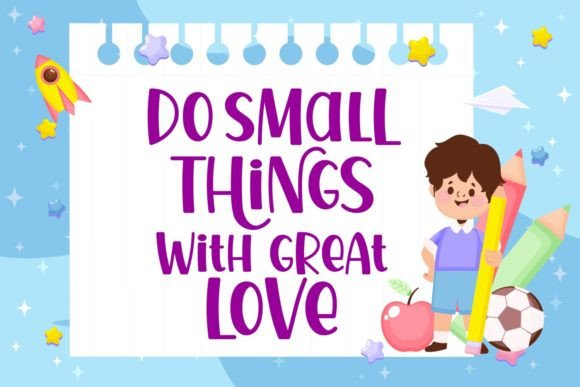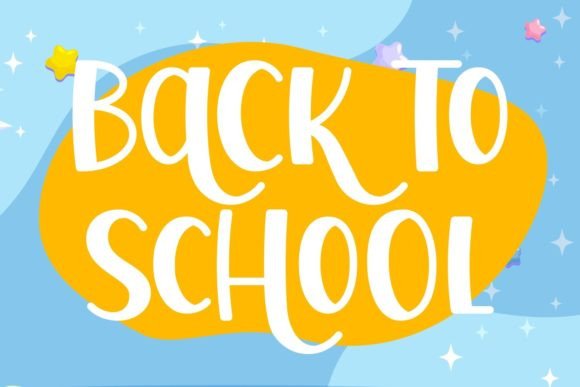
The Ultimate Guide to Favorite School Font: A Youthful and Exuberant Display Font
I’ll never forget the moment I stumbled upon the perfect font for my design project. I was working on a storybook for kids, and I wanted a font that would capture their playful and energetic spirit. After hours of searching, I finally found Favorite School Font, and it was love at first sight! ✨ In this article, I’ll share my honest review of this amazing font, provide a practical guide on how to use it, and explore similar fonts and alternatives.
My Honest Review of Favorite School Font
Here’s what I love about Favorite School Font:
- ✅ Youthful and exuberant look: This font is perfect for designs that require a playful and energetic vibe.
- ✅ Highly versatile: Favorite School Font can be used for a wide range of projects, from storybooks and back-to-school items to magazines and product packaging.
- ✅ Easy to read: Despite its playful nature, this font is surprisingly easy to read, even at smaller sizes.
- ✅ OpenType features: Favorite School Font comes with a range of OpenType features, including glyphs and stylistic alternates, which allow for endless creative possibilities.
However, I do have to mention a few small quirks:
- ⚠️ Limited use for formal designs: Due to its playful nature, Favorite School Font may not be the best choice for formal designs or projects that require a more professional look.
- 🤔 Some letters may be too ornate: A few letters, such as the lowercase “q” and “g”, can be a bit too ornate for some tastes.
The Designer Inspiration Behind Favorite School Font
According to its designer, Favorite School Font was inspired by the playful and carefree spirit of childhood. The font’s creator wanted to capture the essence of youthful energy and exuberance, making it perfect for designs that require a fun and lively vibe.
Q: Is Favorite School Font suitable for body text?
A: While Favorite School Font is easy to read, it’s primarily designed for display purposes. For body text, you may want to choose a font with better legibility at smaller sizes.